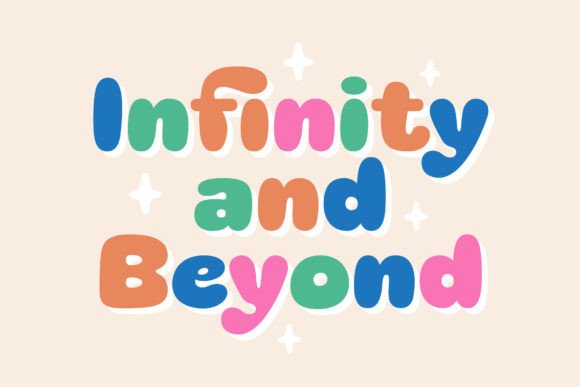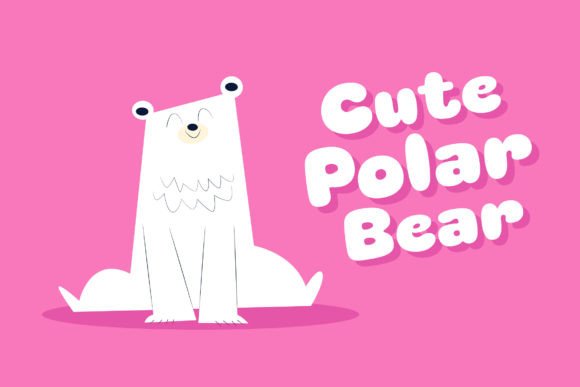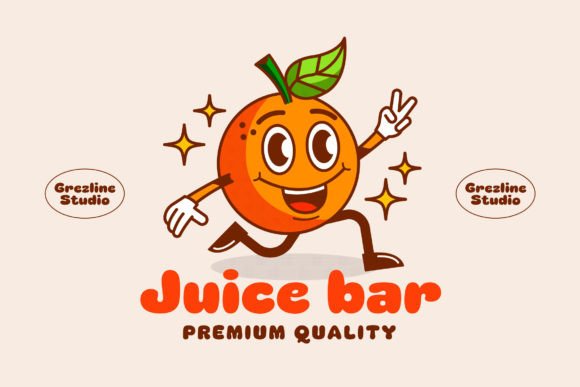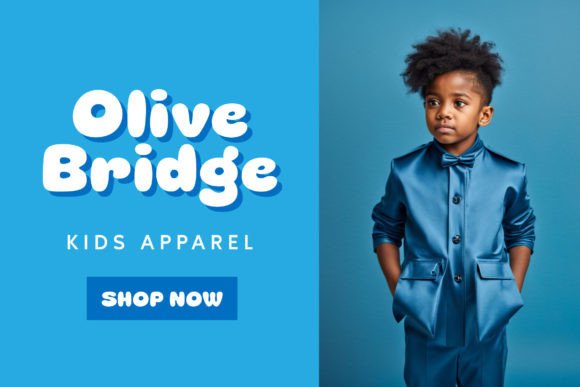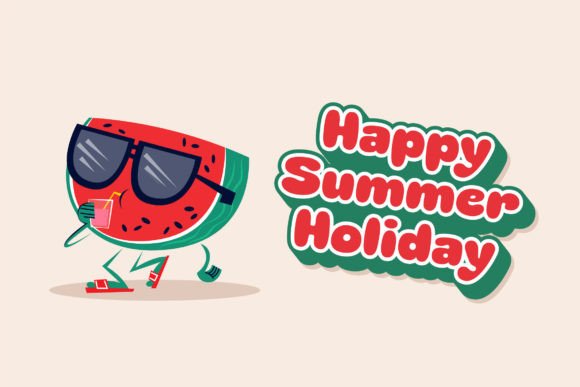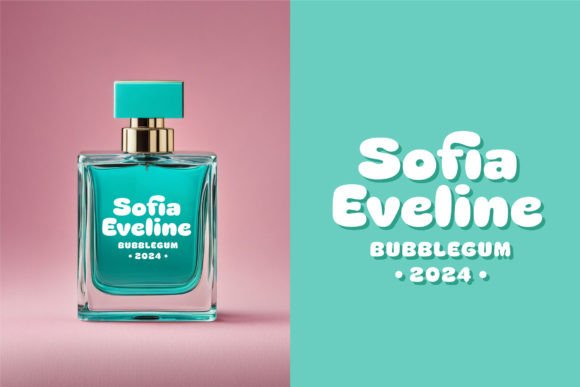
Introducing Griffin Morgan Font: The Perfect Choice for Kids’ Designs
Are you a designer or crafter looking for a font that can add a touch of playfulness and cheerfulness to your kids’ theme designs? Look no further than Griffin Morgan Font! This adorable font is specifically designed to bring a sense of fun and bubbly personality to your creative projects.
What is Griffin Morgan Font?
Griffin Morgan Font is a cute, bubbly, and playful font that is perfect for kids’ designs. Its unique and charming style makes it an ideal choice for designers and crafters who want to create engaging and fun designs for children. Whether you’re working on a logo, poster, packaging, banner, or any other creative project, Griffin Morgan Font is sure to bring a smile to kids’ faces.
Key Features of Griffin Morgan Font
• Playful and Cheerful: Griffin Morgan Font is designed to be fun and playful, making it perfect for kids’ theme designs.
• Cute and Bubbly: The font’s unique style is sure to capture kids’ attention and add a touch of personality to your designs.
• Versatile: Griffin Morgan Font can be used for a wide range of creative projects, including logos, posters, packaging, banners, and more.
• Easy to Read: The font is clear and easy to read, making it perfect for designs that require a fun and playful touch.
Why Choose Griffin Morgan Font?
There are many reasons why Griffin Morgan Font stands out from other fonts. Here are a few:
• Unique Style: Griffin Morgan Font has a one-of-a-kind style that is sure to make your designs stand out.
• Kids’ Appeal: The font’s playful and cheerful personality is sure to appeal to kids and make your designs more engaging.
• Time-Saving: With Griffin Morgan Font, you can create fun and playful designs in no time, saving you time and effort.
• High-Quality: The font is designed to be high-quality and versatile, making it perfect for a wide range of creative projects.
Design Ideas Using Griffin Morgan Font
Griffin Morgan Font is versatile and can be used for a wide range of creative projects. Here are a few design ideas to get you started:
• Kids’ Party Invitations: Create fun and playful party invitations that are sure to excite kids.
• Children’s Book Covers: Design eye-catching book covers that will appeal to kids and make your book stand out.
• Kids’ Clothing and Accessories: Add a touch of fun and personality to kids’ clothing and accessories, such as t-shirts, hats, and bags.
• Playful Posters: Create posters that are fun, engaging, and perfect for kids’ rooms or play areas.
Griffin Morgan Font is a unique and charming font that is perfect for kids’ theme designs. Its playful and cheerful personality makes it an ideal choice for designers and crafters who want to create engaging and fun designs for children. With its versatility, ease of use, and high-quality style, Griffin Morgan Font is sure to become a favorite in your design toolkit.